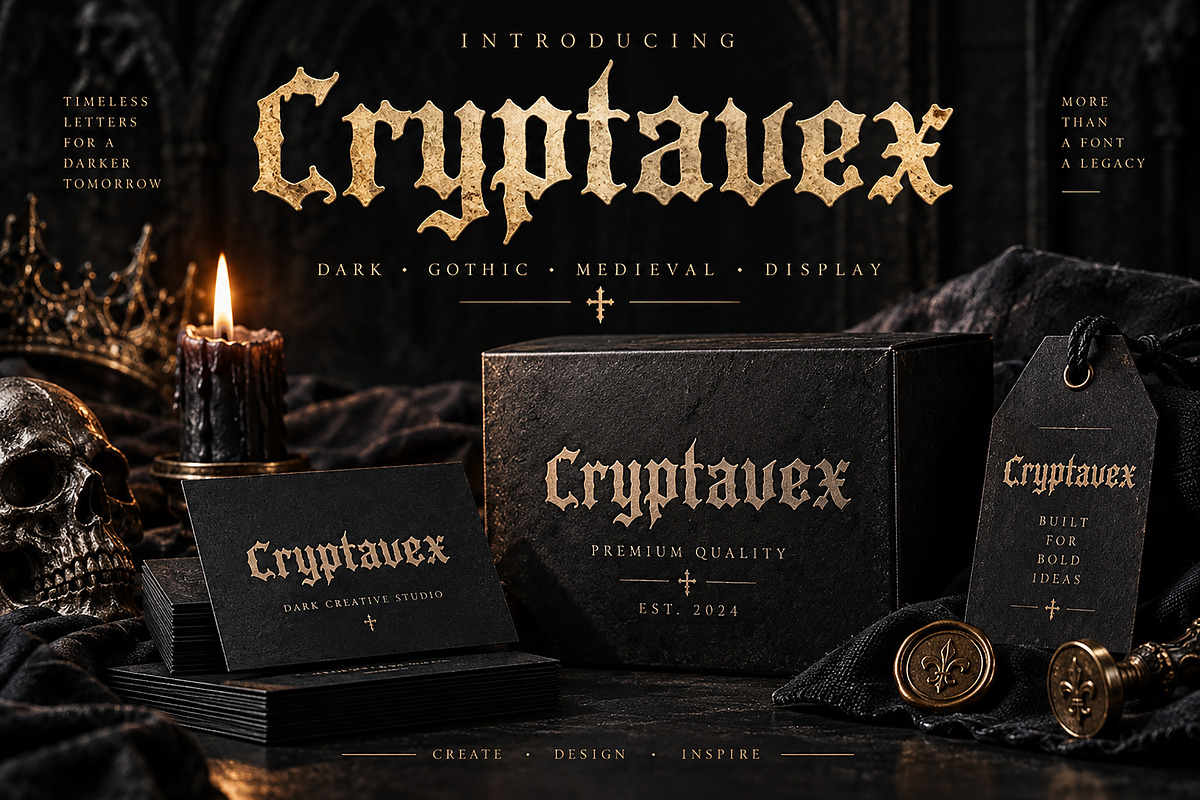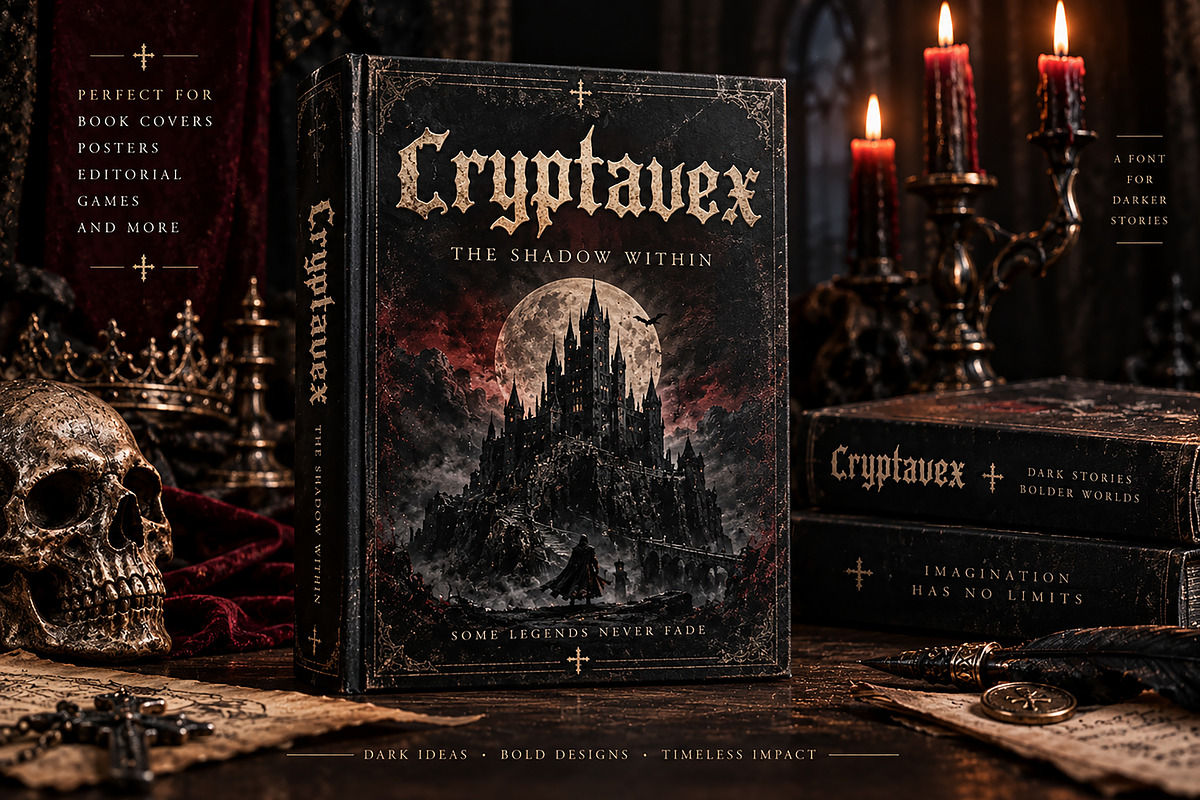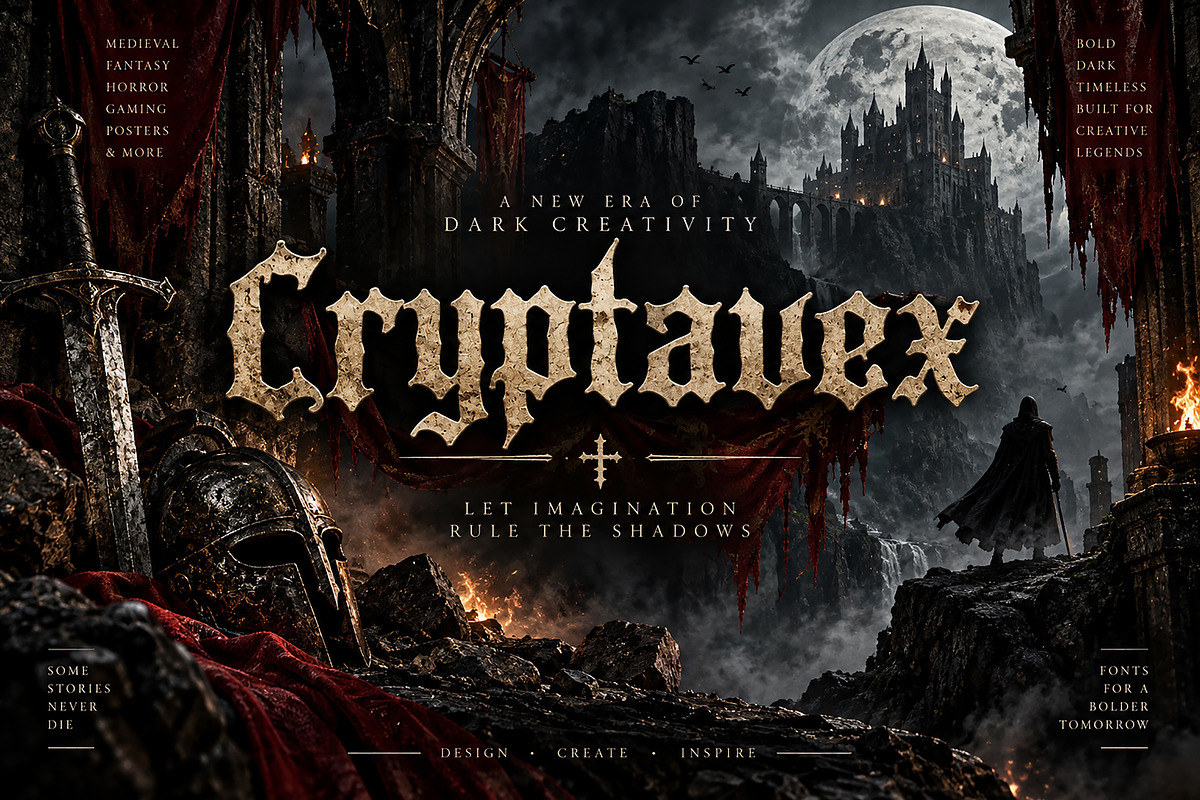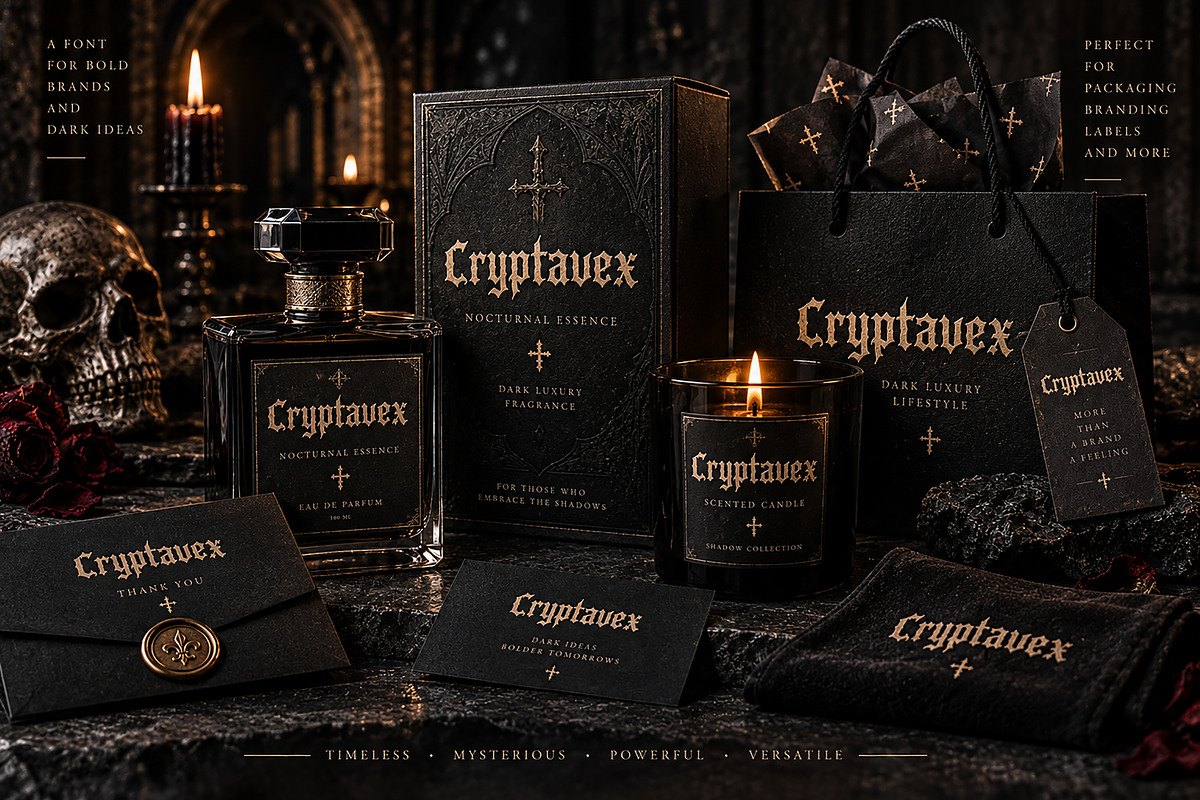
Cryptavex
CRYPTAVEX — Gothic Blackletter Display Font
Cryptavex is a bold and mysterious Gothic Blackletter display font inspired by medieval lettering, dark fantasy aesthetics, ancient manuscripts, and dramatic gothic design.
With its sharp, expressive forms and distinctive blackletter character, Cryptavex brings an intense and powerful atmosphere to any creative project. Its strong visual presence makes it especially suitable for designs that need a dark, historic, rebellious, or mysterious personality.
Perfect for logos, branding, posters, book covers, album artwork, packaging, labels, apparel, editorial designs, fantasy projects, gaming graphics, tattoos, invitations, and more.
Cryptavex is designed to work especially well as a large display typeface, where its unique letterforms can become the visual focus of your design.
Gothic Logo & Branding
Medieval & Fantasy Designs
Dark Fantasy Posters
Horror & Thriller Book Covers
Album & Music Artwork
Gaming Graphics
Apparel & T-Shirt Designs
Tattoo-Inspired Designs
Labels & Badges
Editorial & Magazine Design
Event Posters
Movie & Title Designs
Creative Merchandise
Font Details
Font Name: Cryptavex
Style: Gothic / Blackletter / Medieval / Dark Display
Usage: Display, Branding, Headlines & Creative Artwork
Bring a dark, medieval, and unforgettable personality to your next design with Cryptavex.